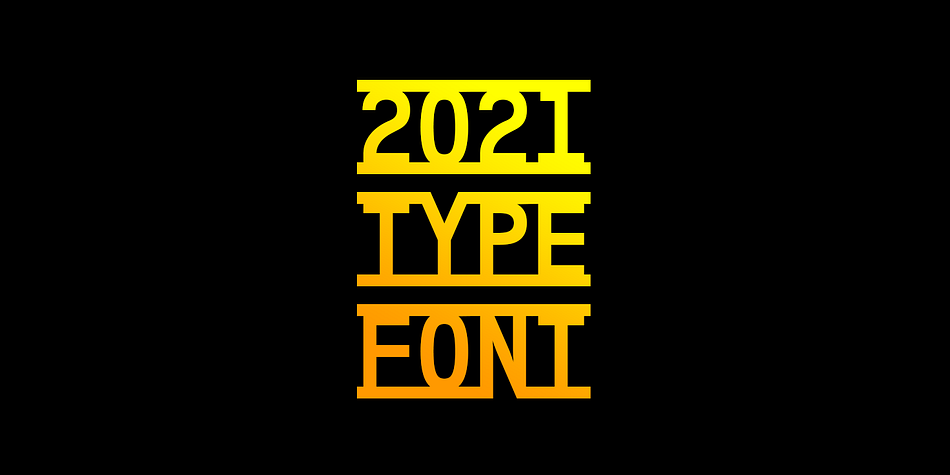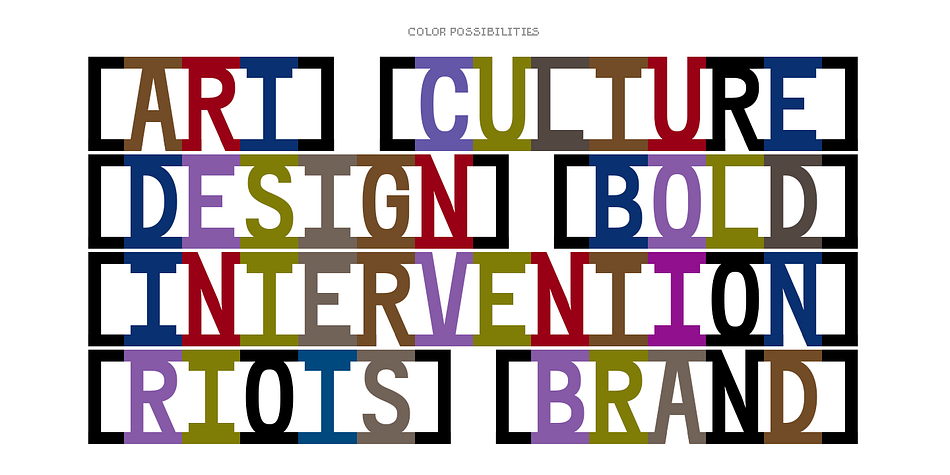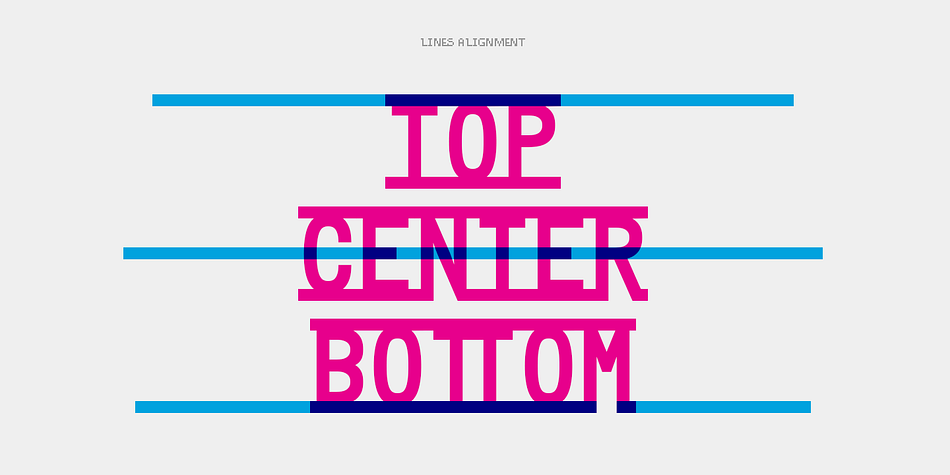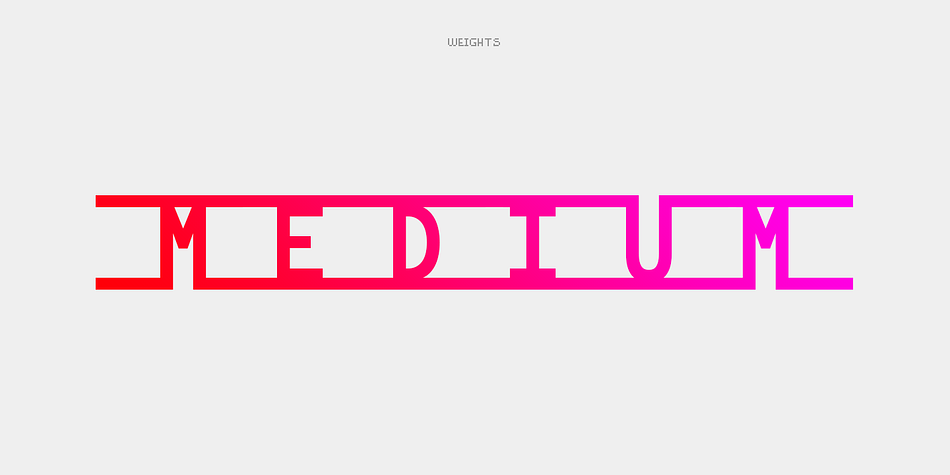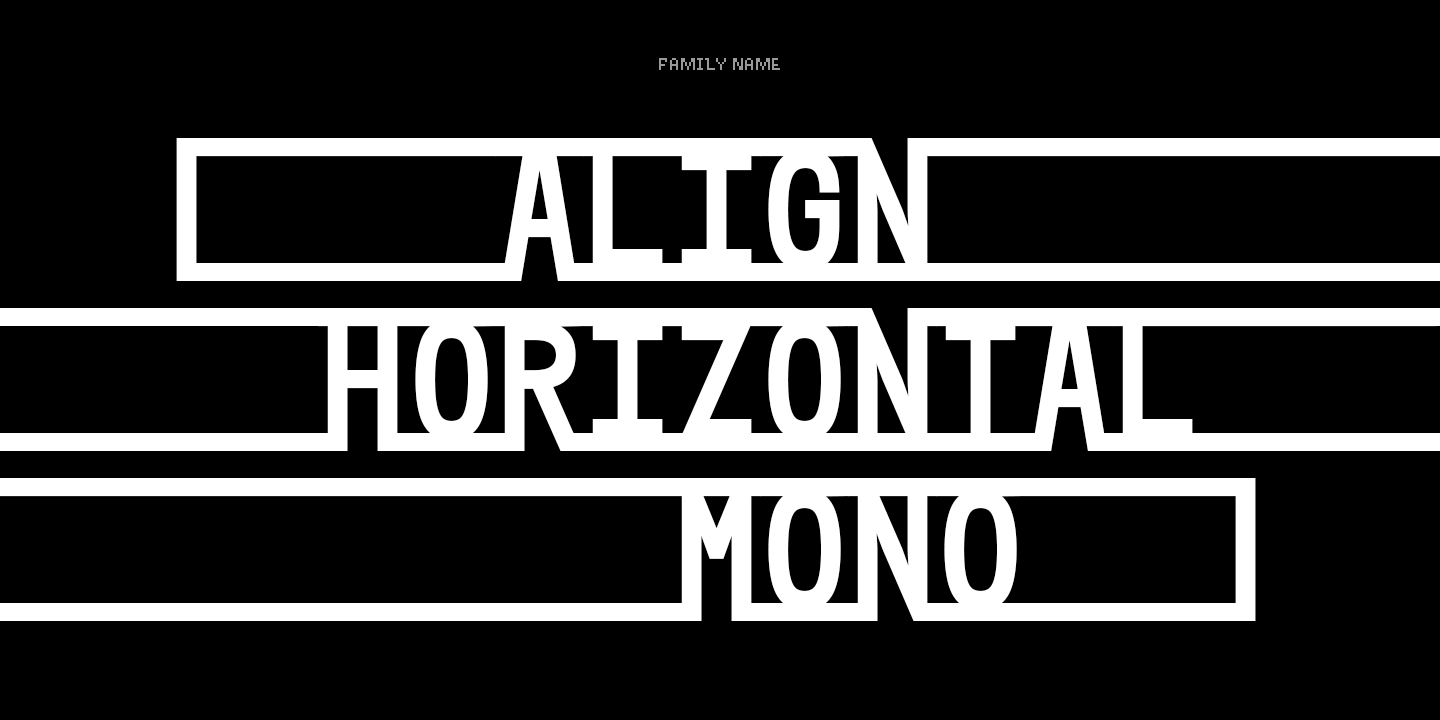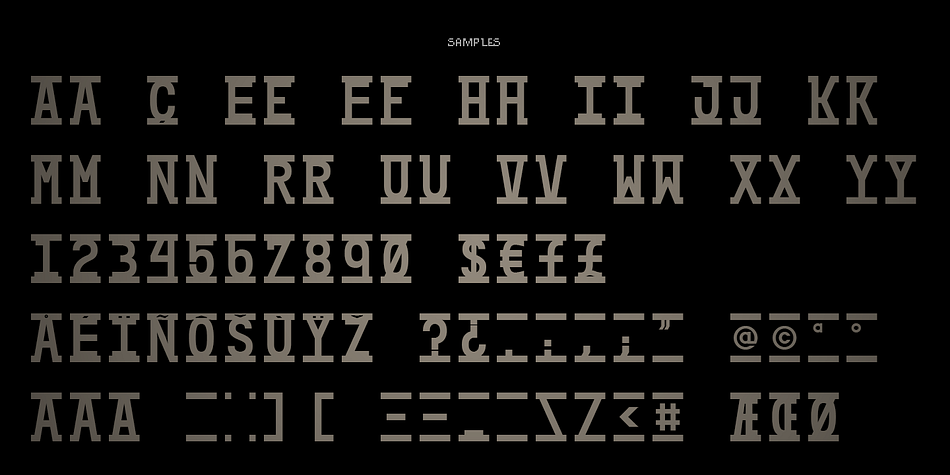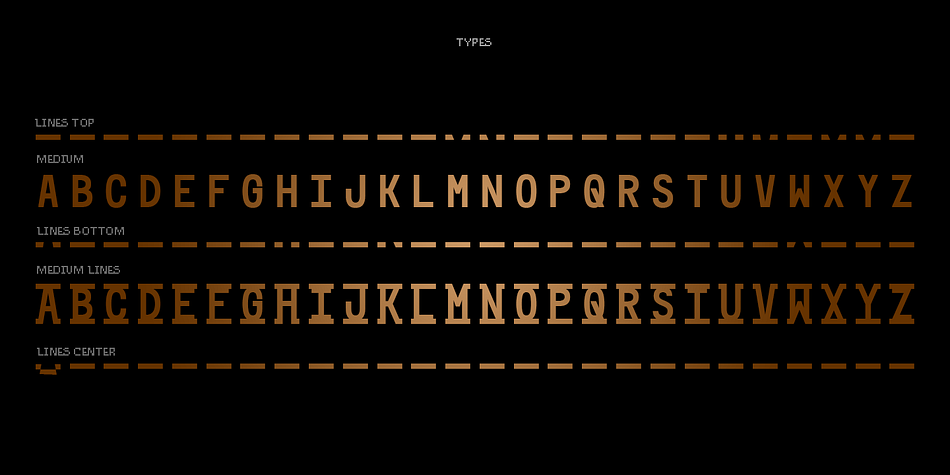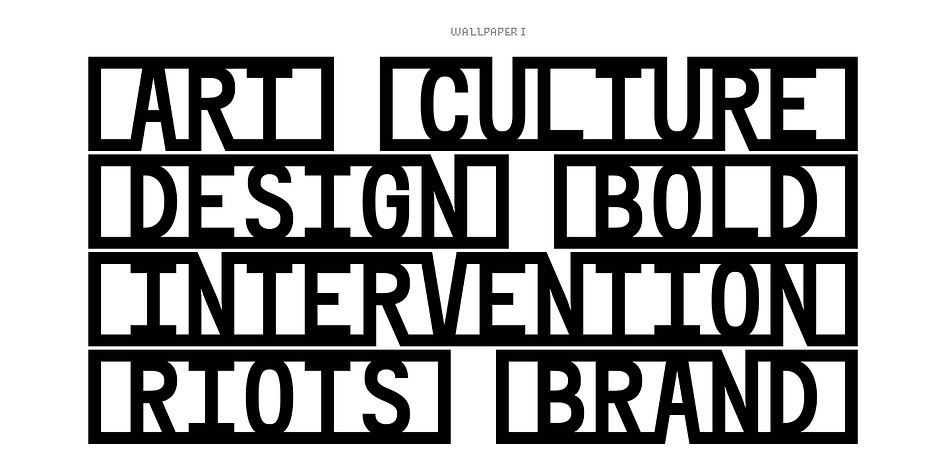
ALIGN HORIZONTAL MONO
Designed by Pedro Mascarenhas, Align Horizontal Mono is a display sans font family. This typeface has five styles and was published by MOM.
Align Horizontal Mono has an innovator construction witch gives to the designer the ability to create beautiful design “patterns” on the page. This font was was design by the tyner (typography Designer) Pedro Mascarenhas to fill a gap in type design. With Align Mono Family, type is the design and not part of the design. The final result of the art work depends of the choices designer makes for each glyph.